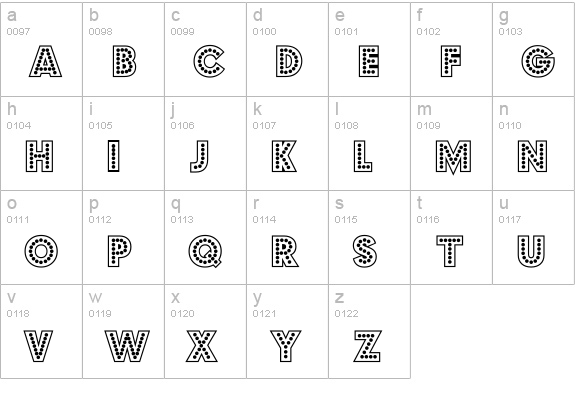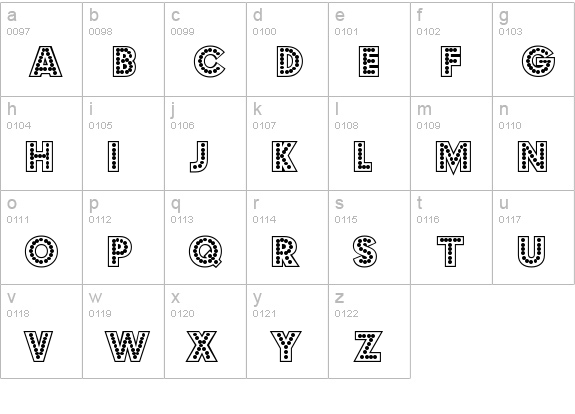
Budmo Jiggler Bold Font Details
Budmo Jiggler Bold is a strong, high-contrast variant in the Budmo typeface family \xE2\x80\x94 well suited to headlines, attention-grabbing titles, and strong calls-to-action.
Budmo Jiggler Bold font is a playful and energetic typeface that is sure to catch the eye. With its whimsical and bouncy letterforms, this font exudes a sense of fun and creativity. Perfect for projects that require a touch of lightheartedness and cheer, Budmo Jiggler Bold is a versatile choice for a variety of design applications. The best part? Budmo Jiggler Bold font is completely free to download at FontsMarket.com. Simply visit the website and start using this delightful font in your projects today. Whether you're designing party invitations, greeting cards, or promotional materials, Budmo Jiggler Bold will add a unique and engaging touch to your work. Don't miss out on this free font - download it now and let your creativity shine!